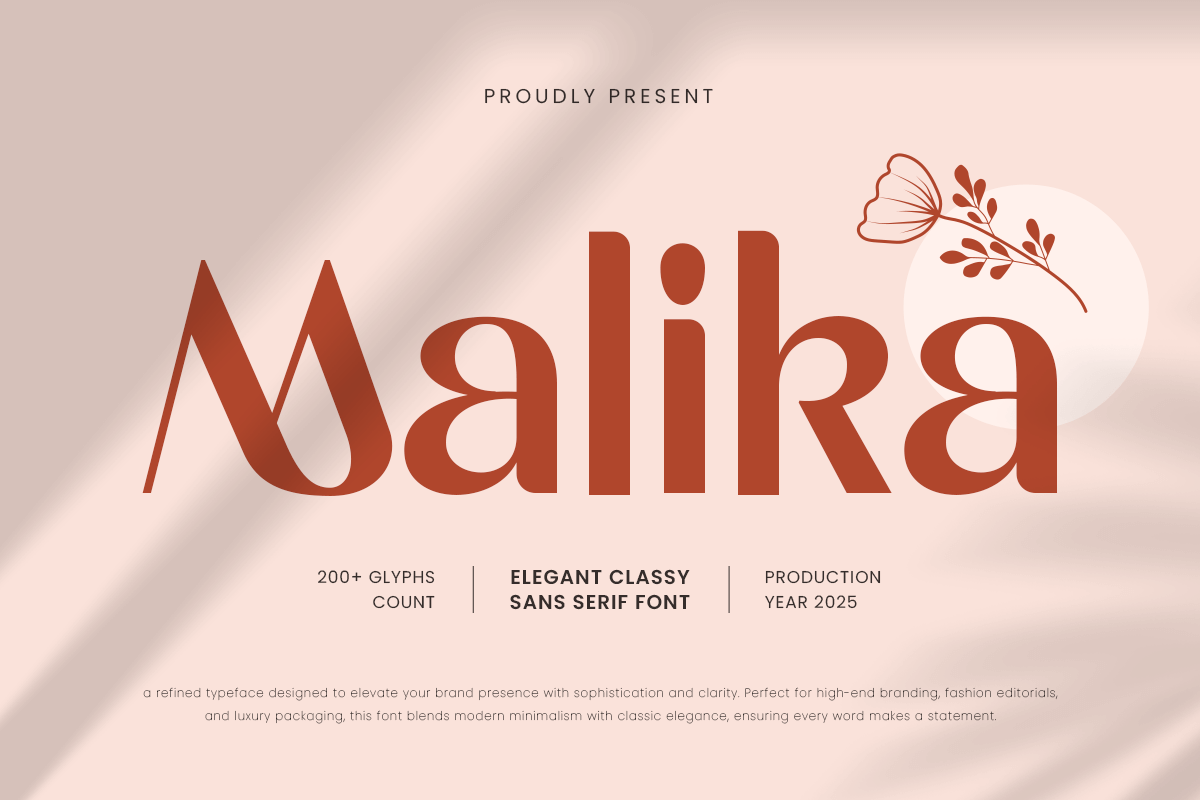
Malika
-Classy Branding Sans Serif FontMalika - Classy Branding Sans Serif Font
Malika is an elegant classy sans serif font designed for modern branding, logos, editorial projects, and premium creative designs. Its refined, clean letterforms give a polished, professional look suitable for both digital and print applications.
With its minimalist yet sophisticated style, Malika ensures readability while delivering a contemporary and luxurious aesthetic for high-end branding and creative projects.
Malika – Elegant Classy Sans Serif Font Features
Elegant and refined sans serif character set
Perfect for branding, logos, and premium designs
OpenType features for extra versatility